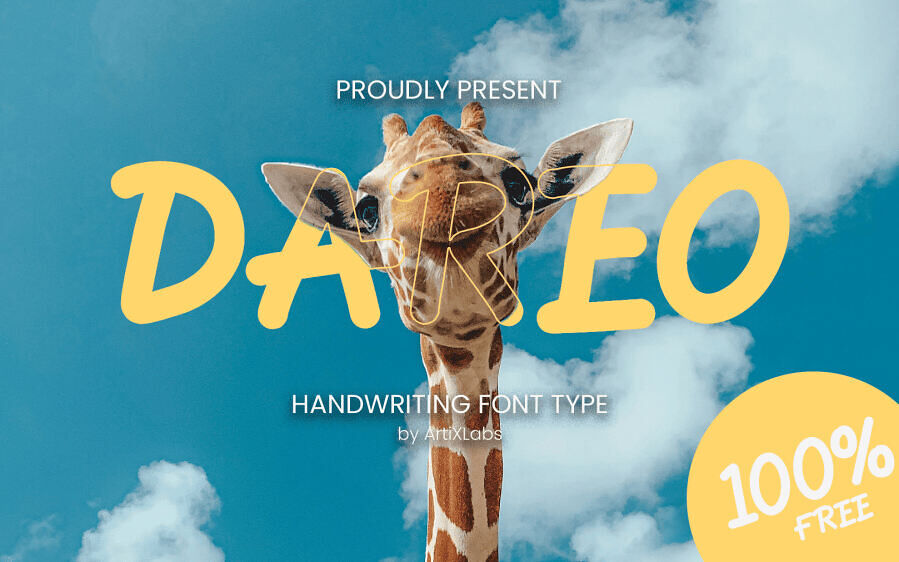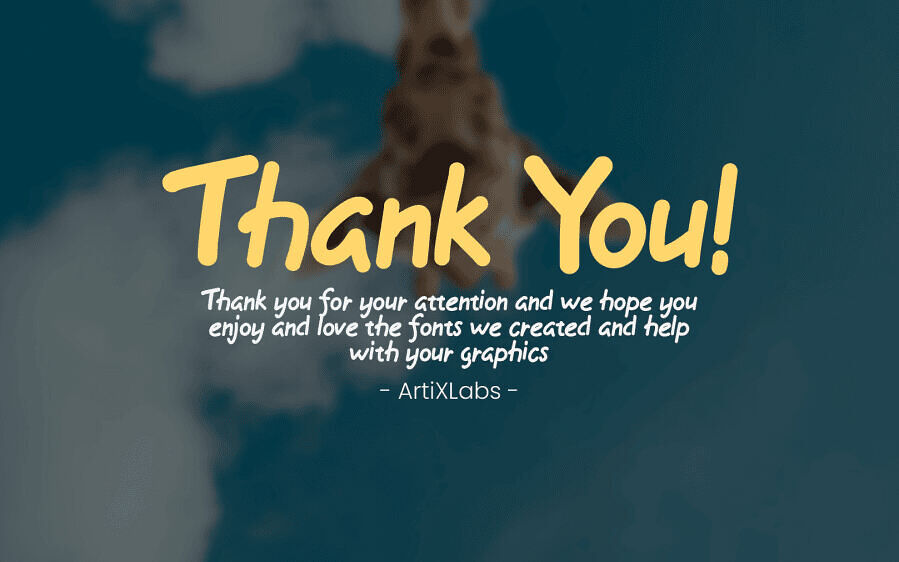
Dareo is a playful, rounded Comic‑style display font designed by ArtiXLabs. Featuring a single bold handwritten style with 155–161 characters, it exudes a soft, creative, and versatile charm ideal for logos, packaging, social media, flyers, T‑shirts, blogs, headlines.